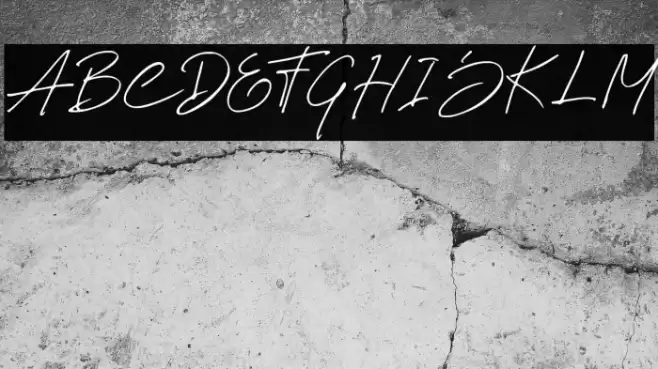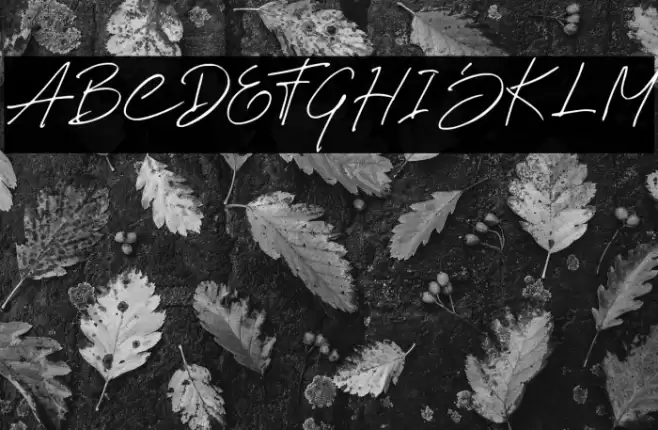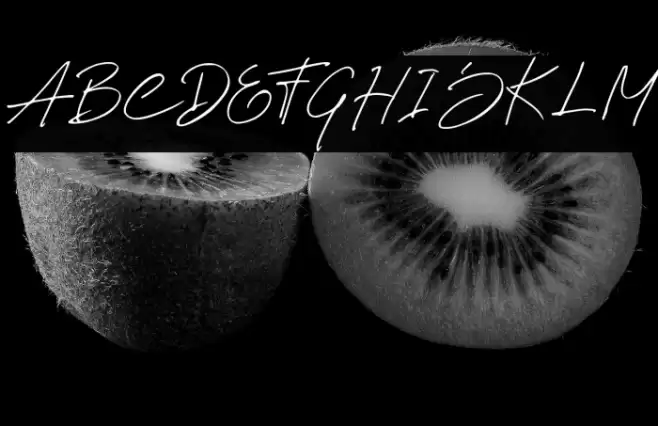
Wish Good Orin Font
Wish Good Orin Description
This font exhibits a fluid and elegant handwritten style, characterized by its cursive and flowing letterforms. The uppercase letters are tall and slightly slanted, with a consistent stroke width that gives a sense of uniformity. The lowercase letters maintain a smooth connection, enhancing the script-like appearance. Numbers and special characters follow the same cursive style, ensuring a cohesive look across all glyphs. The overall design is sophisticated, making it suitable for projects that require a personal touch or an artistic flair.
A fluid and elegant handwritten script font with a cursive style from Uncategorized fonts.
- Proposed Projects: Ideal for wedding invitations, greeting cards, personal branding, and artistic projects that require a touch of elegance and personality.